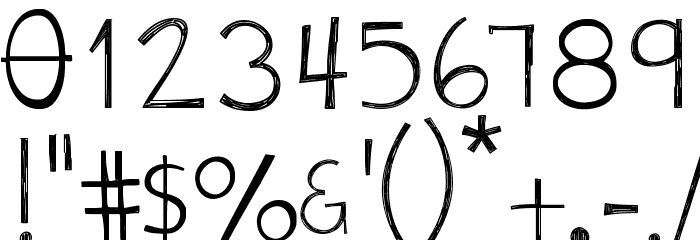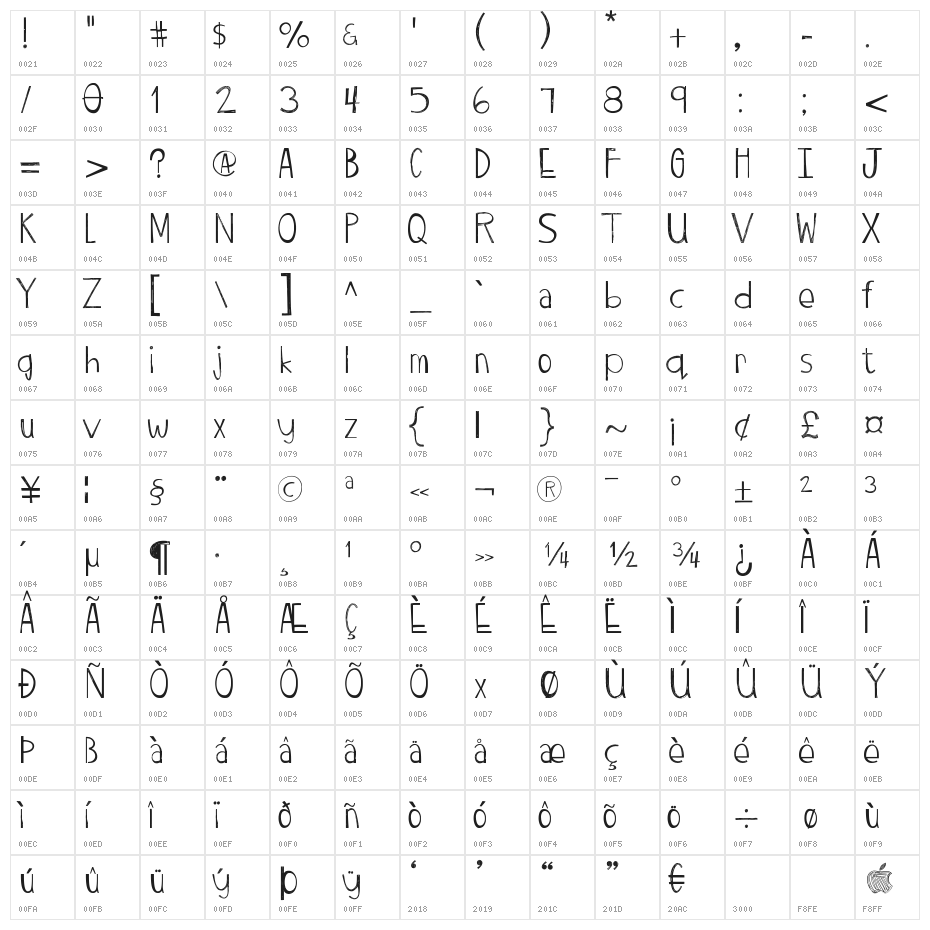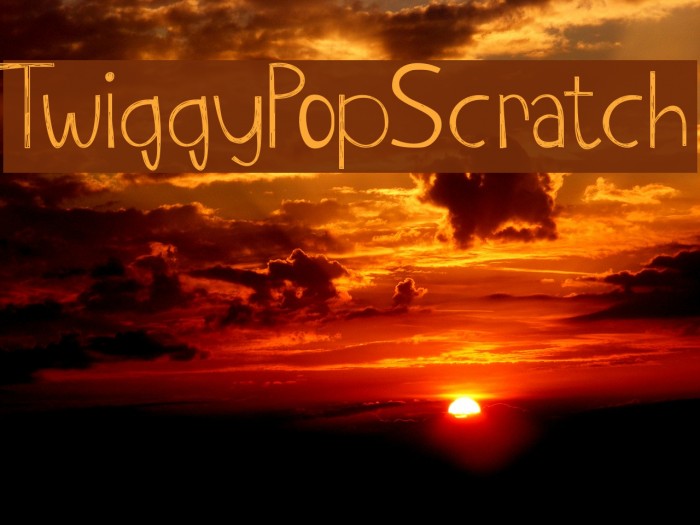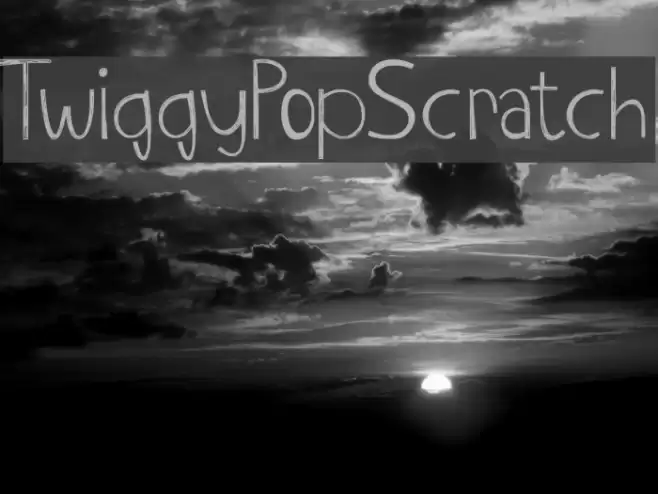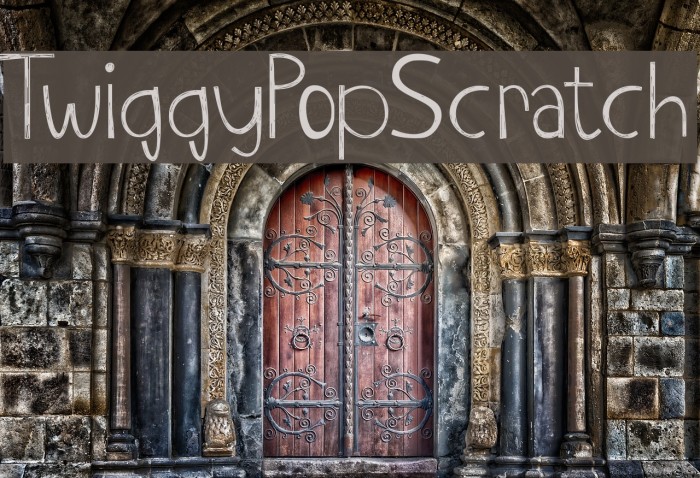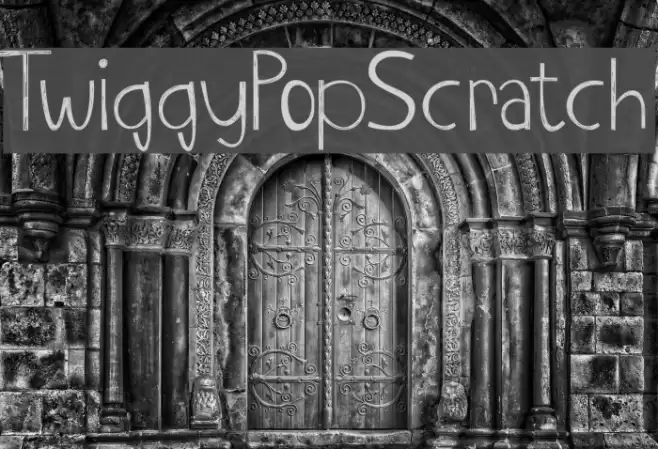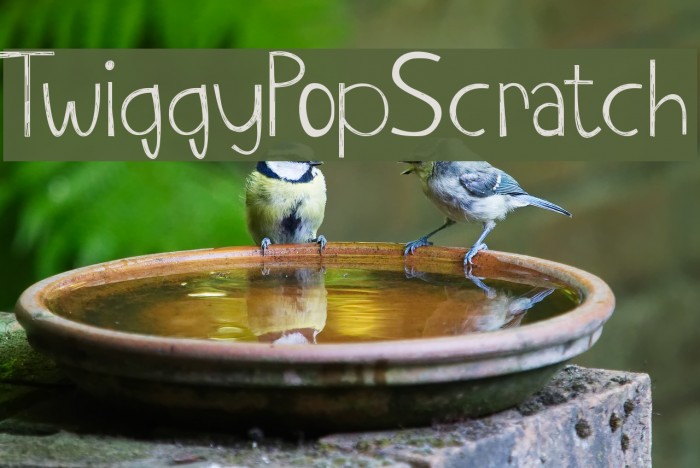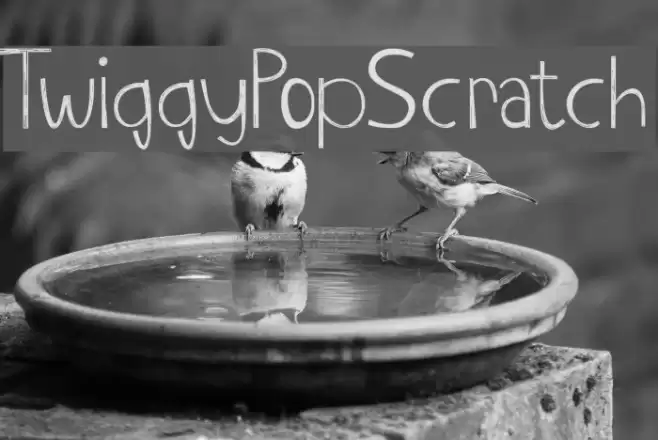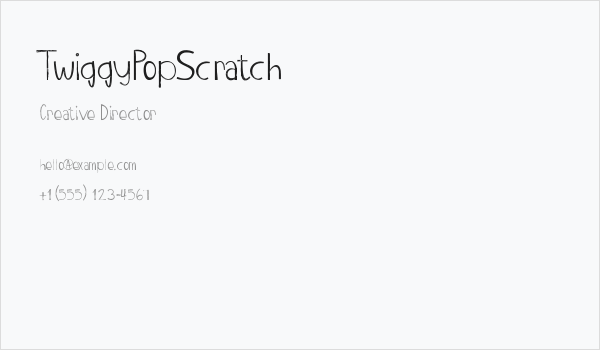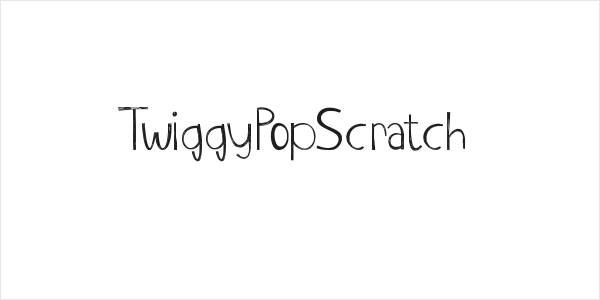
TwiggyPopScratch Font
TwiggyPopScratch Description
This font features a playful and hand-drawn style, characterized by uneven lines and a scratchy texture that gives it a unique, artistic appearance. The uppercase letters are tall and narrow, while the lowercase letters maintain a consistent height, adding to the whimsical feel. Numbers and special characters follow the same quirky design, making the font suitable for creative projects. The overall look is casual and informal, perfect for adding a touch of personality to any design.
| Proposed Projects | Ideal for children's book covers, greeting cards, playful branding, and artistic posters. |